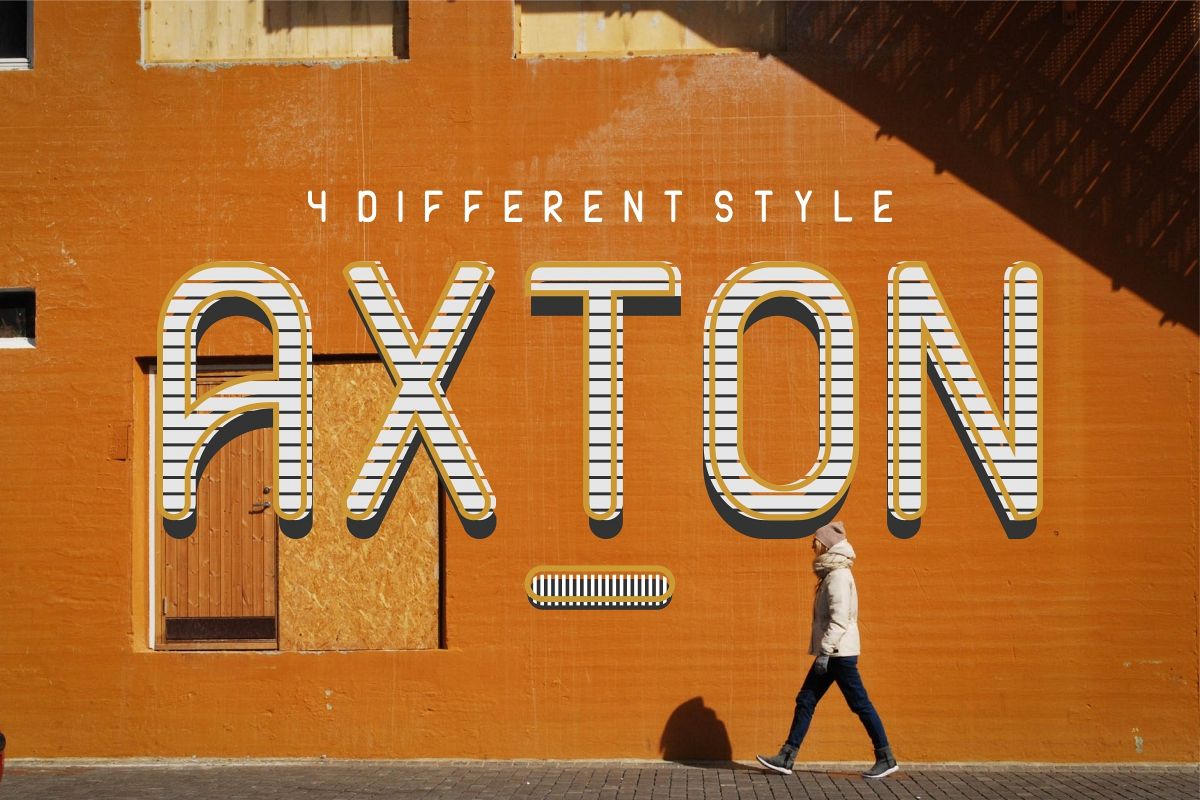
AXTON
AXTON : Rounded Condensed Sans SerifThis font will Work on PC & Mac with Simple installations. Accessible in the Adobe Illustrator, Adobe Photoshop, Adobe InDesign, even work on Microsoft Word. It’s also PUA Encoded Characters – Fully accessible without additional design software.Purchase with confidence! =)